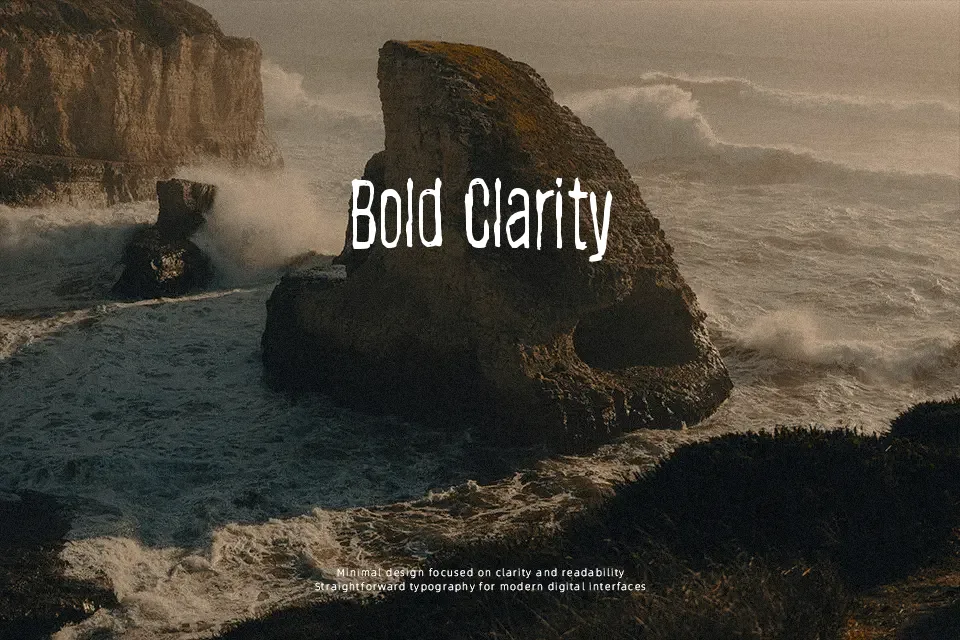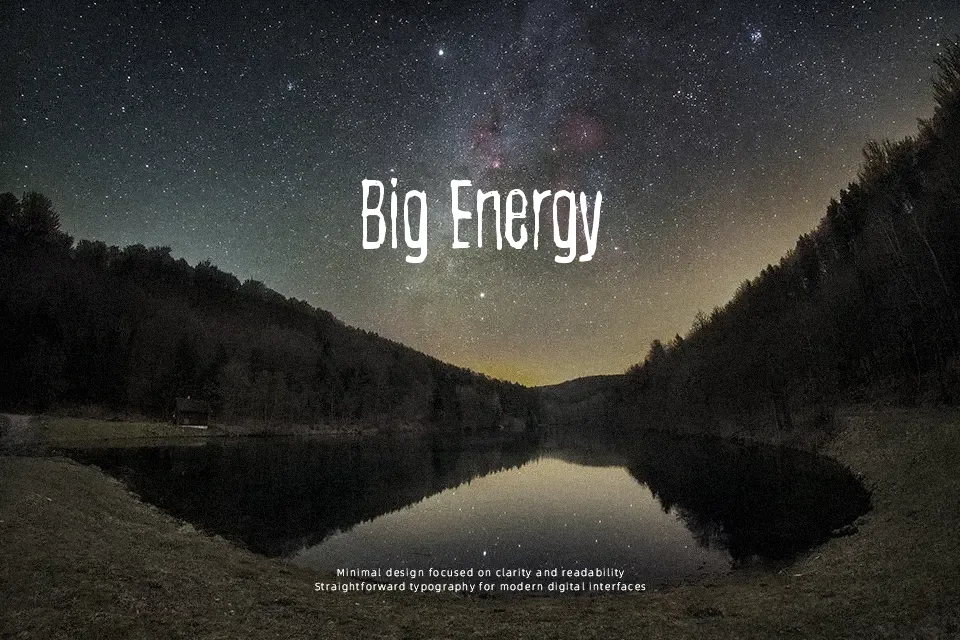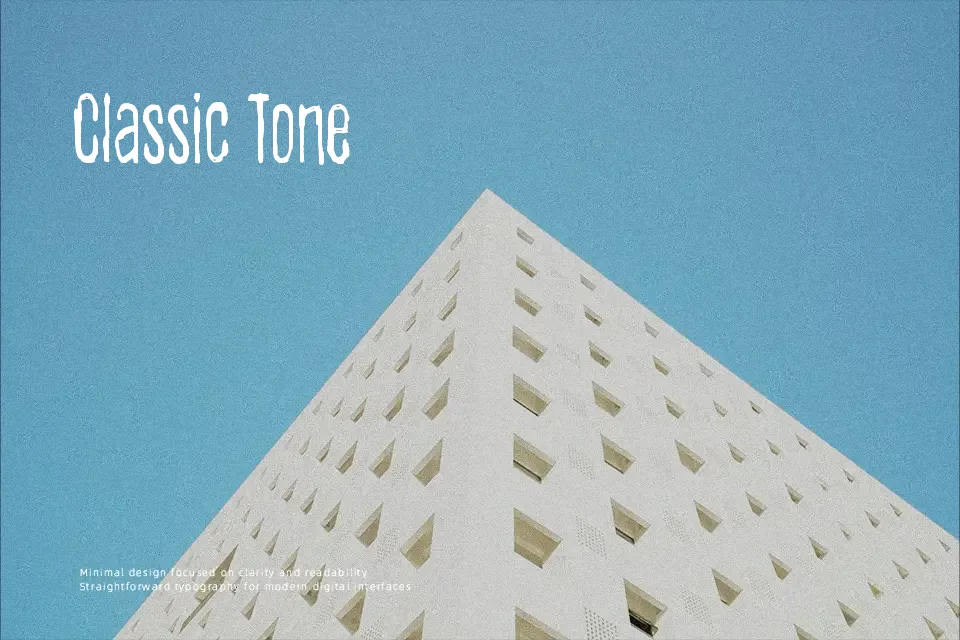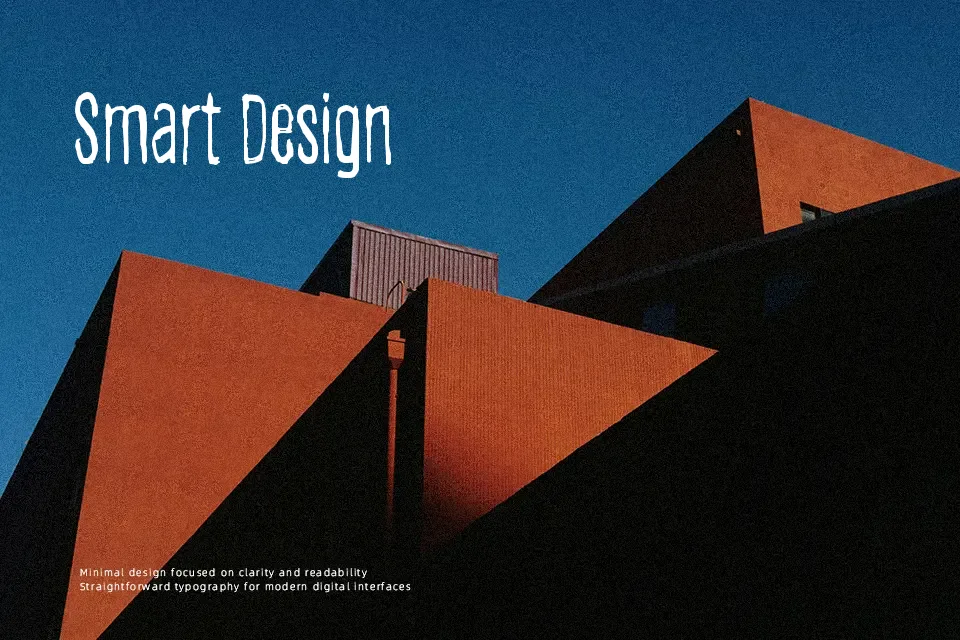
Dog Fox Zebra Font
Designed by Juha Korhonen
Dog Fox Zebra Font has a tall, narrow build with shaky strokes, irregular edges, and a deliberately worn texture that gives each letter a restless, handmade feel. The spacing stays readable at headline sizes, but the rough structure keeps it firmly in decorative territory rather than everyday text use. It works best when a layout needs tension, movement, or a slightly odd personality, such as gig posters, spooky event promos, illustrated packaging, or bold social graphics. I would use it when the brief wants grit without going full horror. I would avoid it for clean brand systems, small captions, or anything that depends on polish and steady rhythm.
indie music posters
Halloween event graphics
illustrated packaging
bold social media headers
body text
formal branding
small UI labels
corporate presentations
Perfect for halloween, headline, and music, with a creative and condensed style.